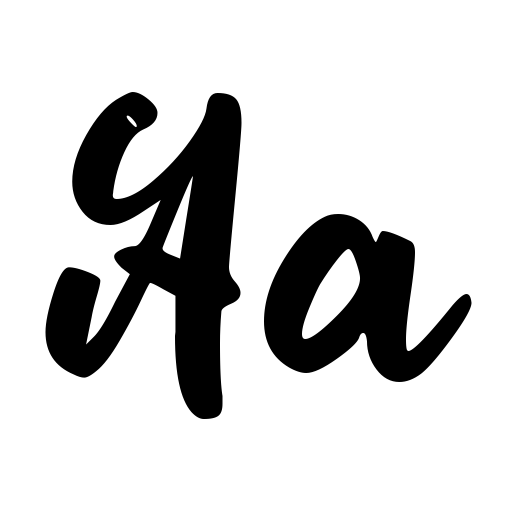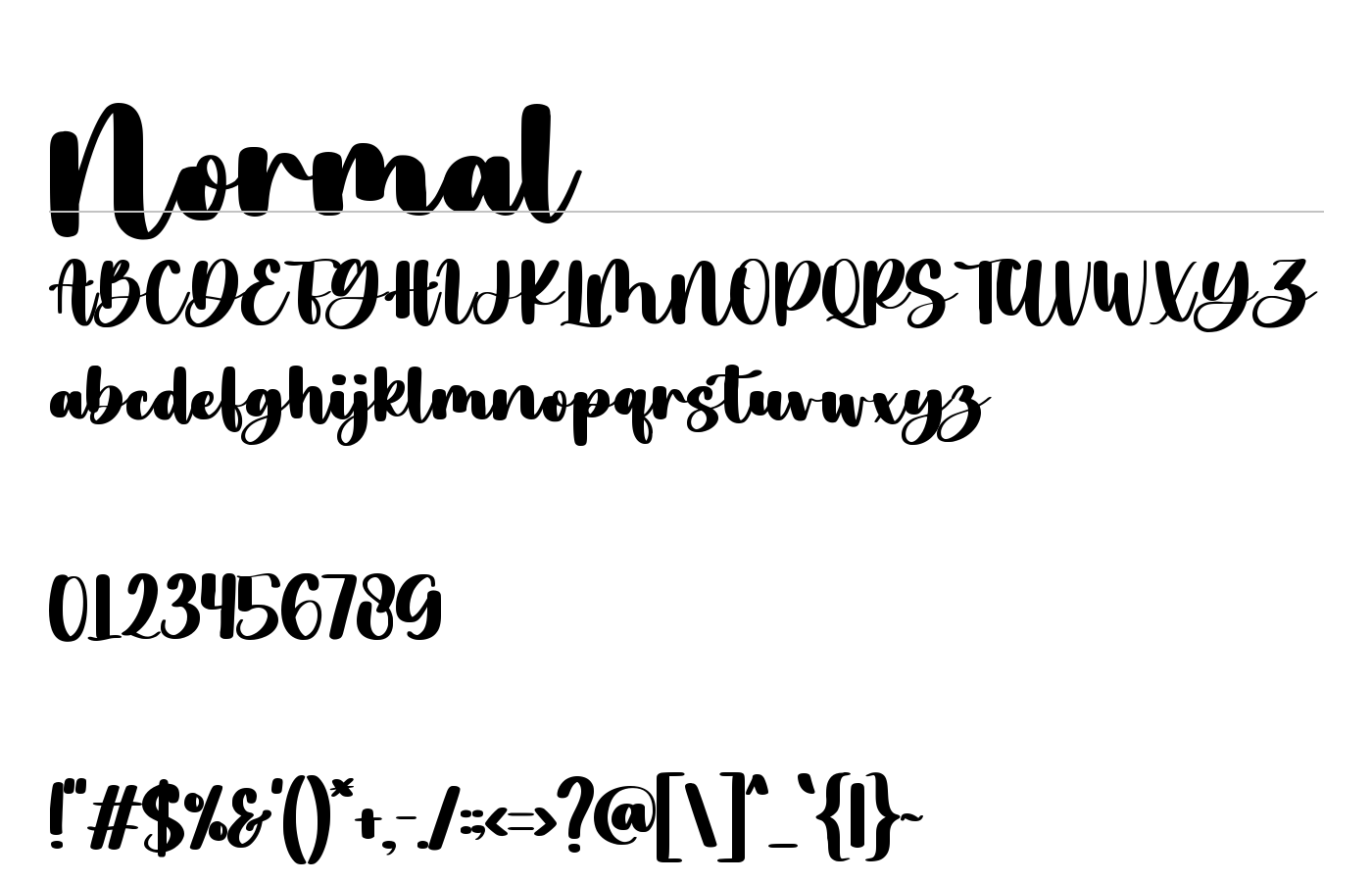
Ayuscript is a bold, lively script font featuring smooth, rounded strokes and playful letterforms that evoke a friendly, informal feel. Its tall x-height and consistent thick weight make it highly legible, perfect for creative branding, invitations, and eye-catching headlines. This font adds a warm, handcrafted touch to designs seeking an approachable and energetic personality.
Ayuscript Font
About Ayuscript Font